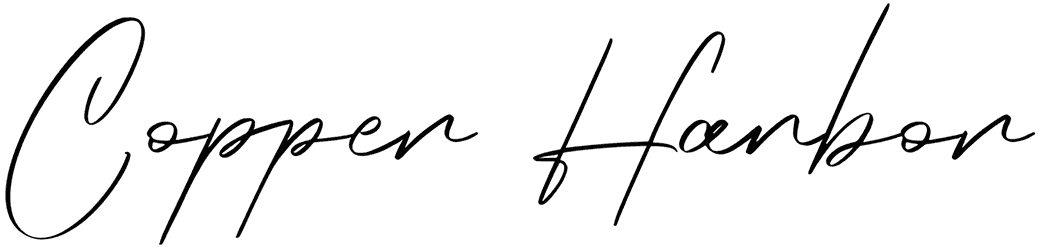
Copper Harbor Font
Copper Harbor, an autograph font, will lend a casual air to your creations. Despite having incomprehensible lettering, Copper Harbor may save your typography and make it appealing to the eye.